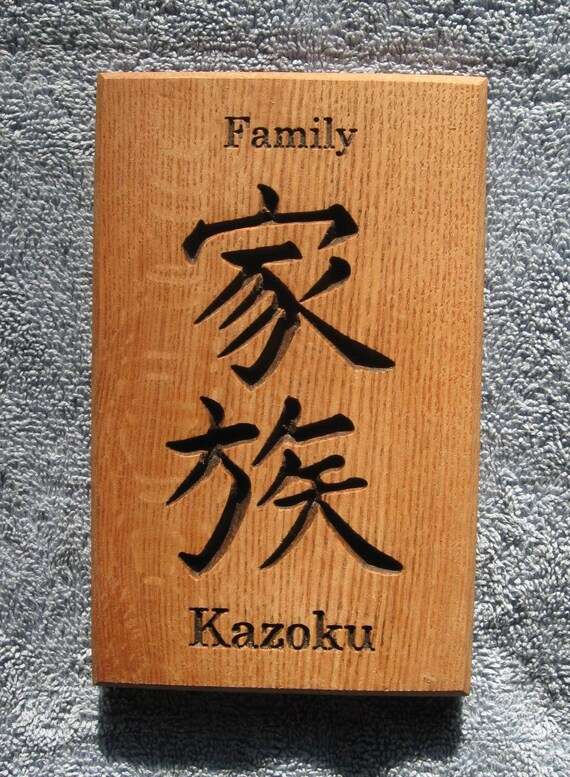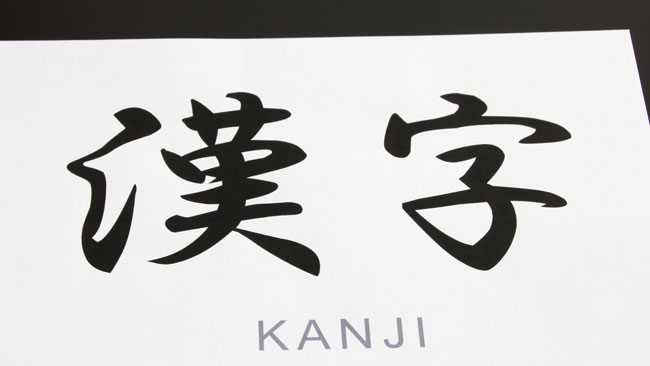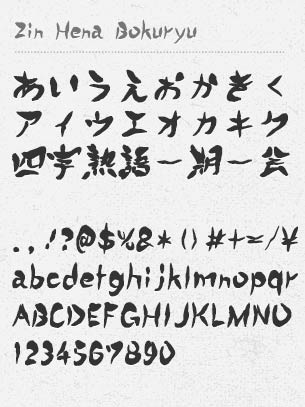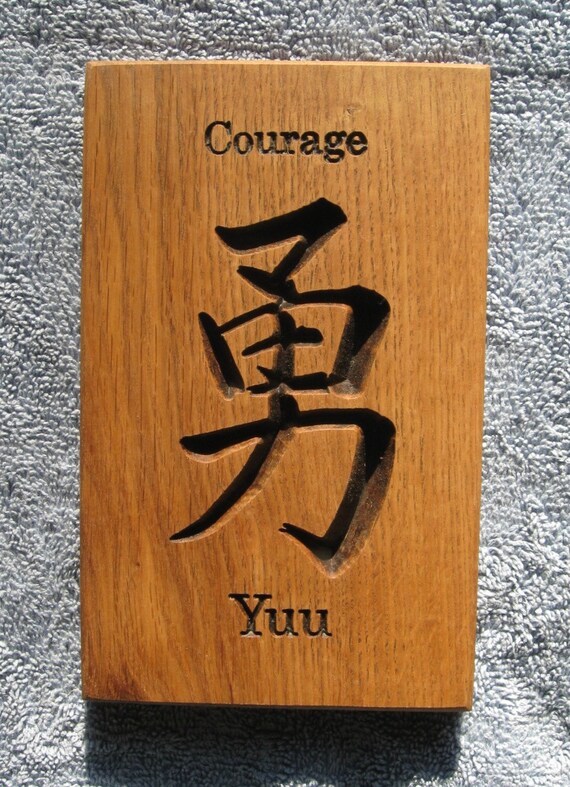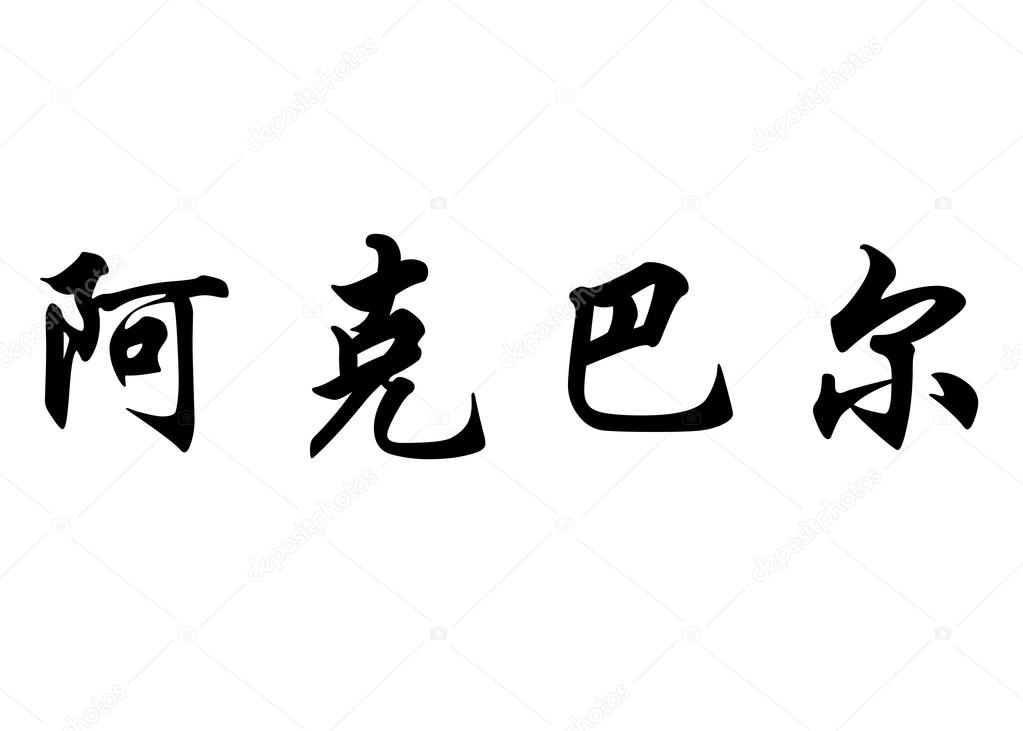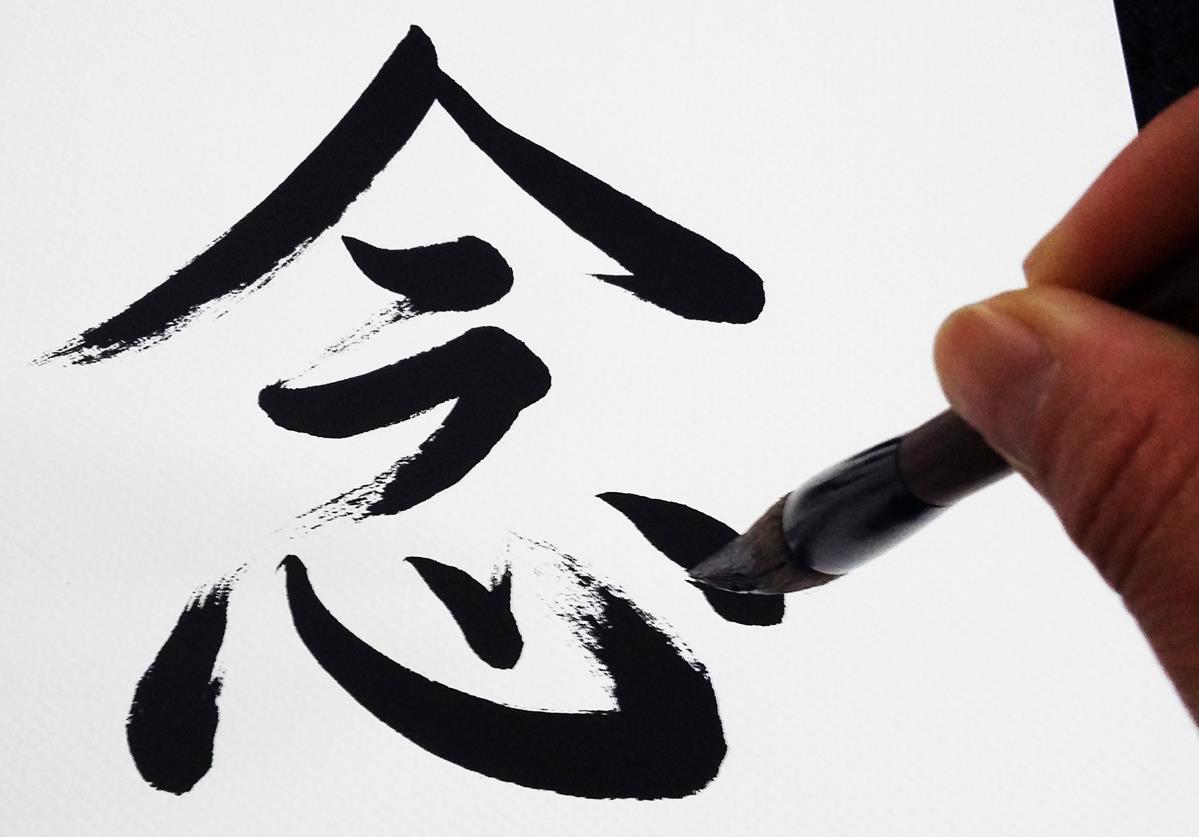
UD Reimin Pro B. Kanji fonts generally support the four major writing systems used in Japan.
UD Reimin Pro L.
Japanese calligraphy font english. The Gothic font first appeared in Japan around the 18th or 19th century. NONA - Japanese Style English Font TTF OTF WOFF. Get professional Japanese Kanji translation design at Kanji Sensei.
For those who want to get Kanji tattoos t-shirts karatejudo belt book covers product packaging etc using Japanese kanji fonts Well translate your words or phrases into Japanese symbols designed with 3 different calligraphy styles and stencil outlines fonts you select. The Shift JIS X 0208 encoding is Microsofts encoding for a Japanese character set containing approximately 7000 characters. Hasil Gambar Untuk Japanese Alphabet With English Letters Estilos De Letras Tipos De Letras Abecedario Disenos De Letras.
Fujimara offers exclusively uppercase characters but it does include numbers symbols and punctuation. Art of Japanese Calligraphy W. Japanese calligraphy also called shūji is a form of calligraphy or artistic writing of the Japanese language.
This is a collaboration with an experienced calligrapher Shigeru Nomura. UD Reimin Pro H. Developed directly from the hand-written Kanji JapaneseChinese Characters.
It is our hope that this free online reference will reduce the amount of improperly drawn Shodō as well as limit the inaccurate translations that we see on tattoos posters stock photos websites and more. The font is a typeface designed in a brushstroke style with the image of a fiery and strong young dr. Fujimaru - Japanese Calligraphy Style Font TTF OTF WOFF Fujimaru is another bold and hand-crafted brush font for those enamoured with the Japanese calligraphy style of font.
The Japanese writing system combines three separate scripts. Kanji is the Japanese name for Chinese logographic characters. Kanji hiragana and katakana.
Too often we see Japanese calligraphy used improperly and so we decided to offer our art work for free. Nagayama Kai is a beautiful calligraphy font that is free for all and was written by calligraphy sho. Hiragana Katakana Kanji and Romaji.
The Mincho font was first used in 15th century China during the Ming Dynasty as a typeface for woodblock printing. Each font is Unicode encoded and. For a long time the most esteemed calligrapher in Japan had been Wang Xizhi a Chinese calligrapher from the 4th century but after the invention of Hiragana and Katakana the Japanese unique syllabaries the distinctive Japanese writing system developed and calligraphers produced styles.